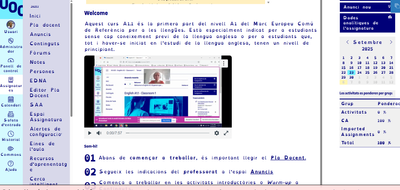
Dyslexia-friendly font: Offering more accessibility options to our users
Hi, I'm Ed Schiebel, guest blog poster and Senior Software Engineer with Instructure, where I spend my days working on Canvas. Here at Instructure we periodically have a Hackweek, where engineers get to work on features we don't have time to tinker with during the normal course of business. Sometimes hackweek ideas come from being up to our necks in the guts of Canvas, sometimes ideas come from our product, support, or customer success colleagues, and sometimes ideas come from reading posts in the Instructure Community from you folks. This post is about one of the latter.
What’s Changing:
Instructure and Canvas have a long history of accessibility in support of our diverse user community, and I have personally been involved with software accessibility for well over a decade. With that in mind I went searching for a hackweek project in the community and came across this post asking for Canvas to support a font that's easier to read for our users with dyslexia. It took a while (a couple hackweeks with months in between), but in the latest Canvas release users may now choose to use a dyslexia friendly font as their default font throughout Canvas.
Why?
We’re committed to accessibility and making a dyslexia-friendly font available is another way we’re making Canvas more accessible for all. This new user-level feature flag replaces the default font in Canvas with Open Dyslexic, an open source font created to help increase readability for readers with dyslexia. Our instructors and students can now use this feature to help make their teaching and learning easier. While we know that the research behind this font is not necessarily conclusive, we want to offer users the opportunity to decide for themselves which settings are best for their own learning, needs, and success by offering them options.
What to Expect:
Similar to the option that has Canvas render in a high contrast, a Use a Dyslexia Friendly Font toggle now appears in the user's Profile Tray,
and as a selection in the Feature Options section of the user's Settings page.
When turned on in either location Canvas replaces its default font with OpenDyslexic, an open source font designed for improved readability for those with common dyslexia symptoms.
I love this @eschiebel .  I'm also wondering about the possibility of having this feature within the Canvas Student App on iOS.  Thanks!
This is a great functionality,  we believe it will be very helpful for our students.
We've noticed that in some parts of the course, the feature doesn't seem to work as expected. Could this be related to our custom CSS, possibly affecting the visibility of certain titles or texts?
Thanks for sharing this feature @eschiebel, this is helpful step to giving users flexibility in how they experience Canvas. It is great to see Instructure prioritize accessibility and user customization. Allowing users to choose their font is a helpful option, I'm sure there are many users who appreciate having the ability to use the OpenDyslexic font. I'm sure you have reviewed some of the mixed results of the impact of OpenDyslexic for users with dyslexia - in the future you may consider approaches that allow users to select a font that works best for them. In the meantime, it may be helpful to note that there are tools and browser extensions that allow users to set their preferred fonts that work on across sites. It is probably a known issue and technical limitation, but it appears the feature doesn't work for content within iframes which would include LTI tools and New Quizzes.
@jdurancal, can you be more specific about what parts of a course isn't working as expected? If your custom CSS alters the font-family, that could cause issues. The OpenDyslexlic font is larger than Canvas' default Lato, so you will see some text wrap that didn't before. If there are issues I want to address them.
@christopher_phi LTI tools are not in our control, what's in their iframe is controlled by the tool authors. I'll explore if there are ways around this, but I'm not hopeful. Since New Quizzes is an Instructure feature and part of Canvas, I will work to incorporate them. My bad on that oversight.
Allowing users to select their own font is a good idea, but would be significantly more complicated. We're going to have to live with OpenDyslexic for now.
@MelissaPiette The iOS and Android apps are developed separately from web-based Canvas. I will talk with the mobile product managers and see what we can do. For now, this feature is limited to the web version.
@eschiebel Instructure has several first-party LTIs besides New Quizzes. Please also consider coordinating the dyslexia-friendly font feature with NQ Item Banks, Canvas Studio, New Analytics, Roll Call Attendance, Smart Search, Chat, etc.
@eschiebel Thank you!  With more and more students using mobile devices to access learning through their workflow (K-Higher Ed), ensuring the iOS and Android platforms function with the similar features is so important for consistency, equity and access.  I appreciate you following up with the mobile product managers on this.  Do the mobile product managers also share updates in the community?
This is how it looks in Production:
And this is how it looks in Beta:
I assume your team is already working on this.
Do you know when the fix will be deployed?